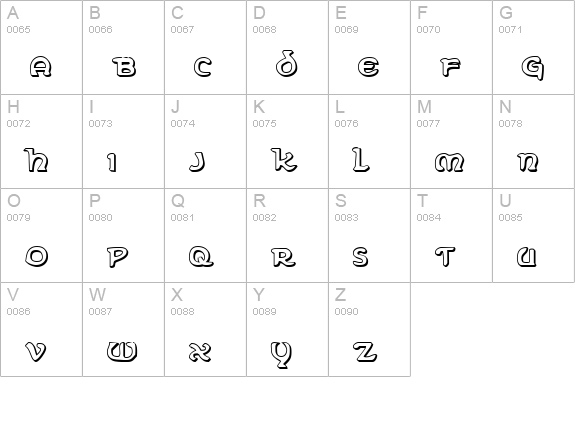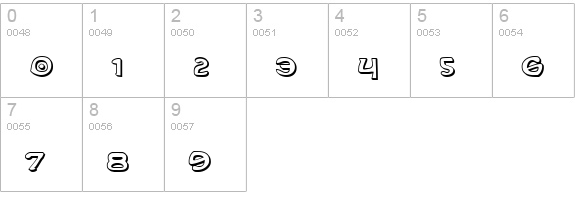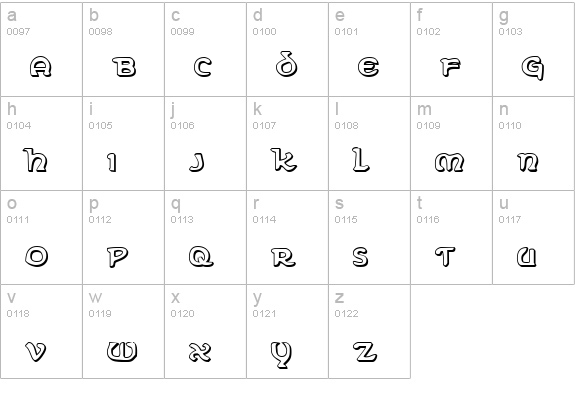
The Erin Go Bragh 3D font is a stunning and dynamic font that adds depth and dimension to any design project. With its bold and eye-catching 3D effect, this font is sure to grab attention and make a statement. Perfect for posters, banners, logos, and more, Erin Go Bragh 3D font is versatile and impactful. The best part? Erin Go Bragh 3D font is completely free to download at FontsMarket.com. You can easily access this unique and stylish font without any cost, making it a valuable addition to your font collection. Don't miss out on the opportunity to enhance your designs with the striking Erin Go Bragh 3D font, available for free download now.